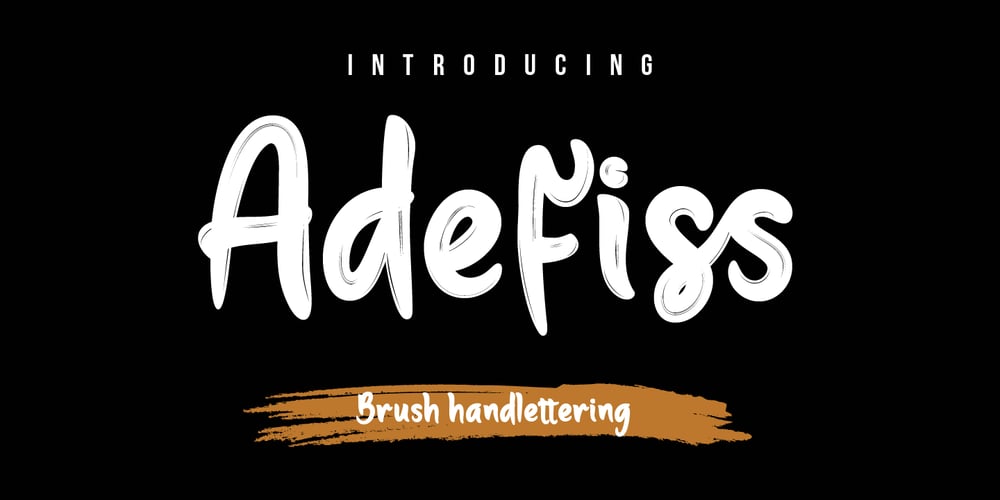
Adefiss
Adefiss font
Adefiss Font Family was designed by Lita Faolina and published by Product Type. Adefiss contains 1 styles and family package options. Adefiss is a brush handwritten font that exudes a sense of casual elegance. Its organic, flowing characters mimic the beauty of human handwriting, making it perfect for designs that require a personal, handmade touch. Whether you’re creating a heartfelt greeting card or a trendy logo, Adefiss adds a touch of authenticity that is sure to captivate your audience.